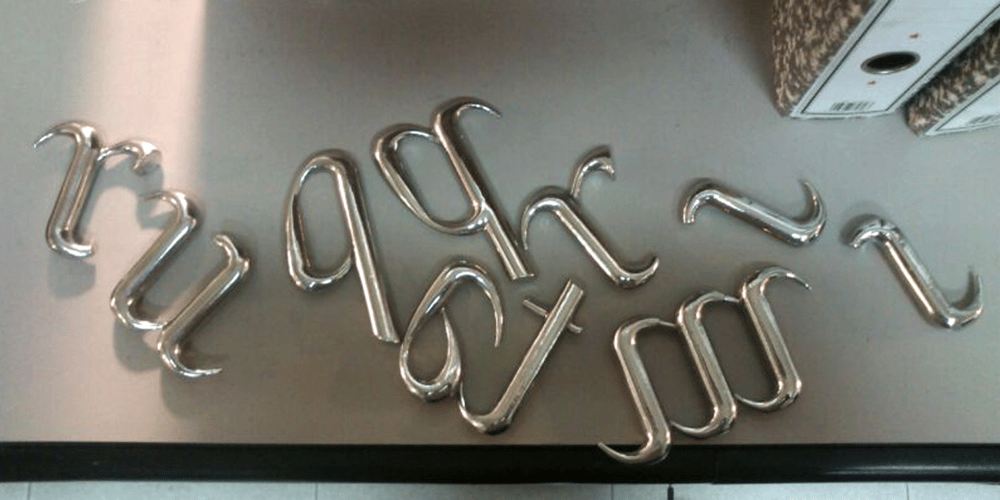
Lamia Font Family was designed by Santos Bregaña, Julen Cano Linazasoro, Maore Sagarzazu and published by Atelier laia. Lamia contains 1 styles and family package options. The Lamia font is inspired by the work of the most famous calligrapher of the Basque Country, Jose Francisco de Iturzaeta Eizaguirre (Getaria1788-Madrid 1853). His writing method was compulsory in Spanish schools since 1835. His “unpolished Spanish font” tried to be more effective than the more commercial English version by avoiding embellishments and excessive rear tearing. More akin with the liberal values imported by the French, his offerings sought uniformity, speed and efficiency to ensure that those in the less-favored echelons of society had an effective communication tool. From his “general collection of characters of European Letters” published in Madrid in 1833, we have chosen the “lower case pancilla reformed” represented in one of the prints. We have tried to reinterpret it by keeping its essence but also ensuring that it is viable for potential contemporary uses which, thanks to its good readability and effectiveness in longer texts, basically means as a decorative or display font. The upper case was generated using the lower case as a reference.